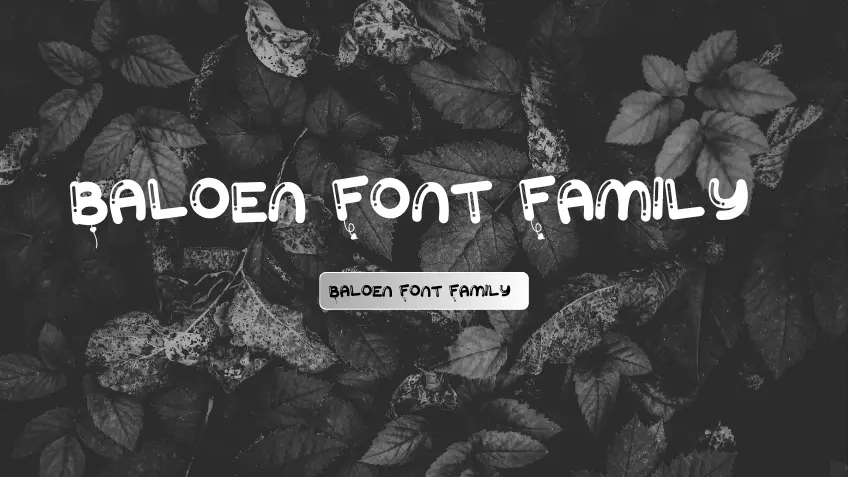
The font Baloen Regular, designed by Jada Type, falls under the Display category & Baloen font family. Its smooth, flowing letterforms make it a versatile choice for projects that require both elegance and readability. Baloen is particularly well-suited for Birthday Invitation, Headlines, Titles, Display, Decorative text and Christmas Decor. With its balance of simplicity and decorative appeal, this font brings a polished touch to both personal and professional designs.